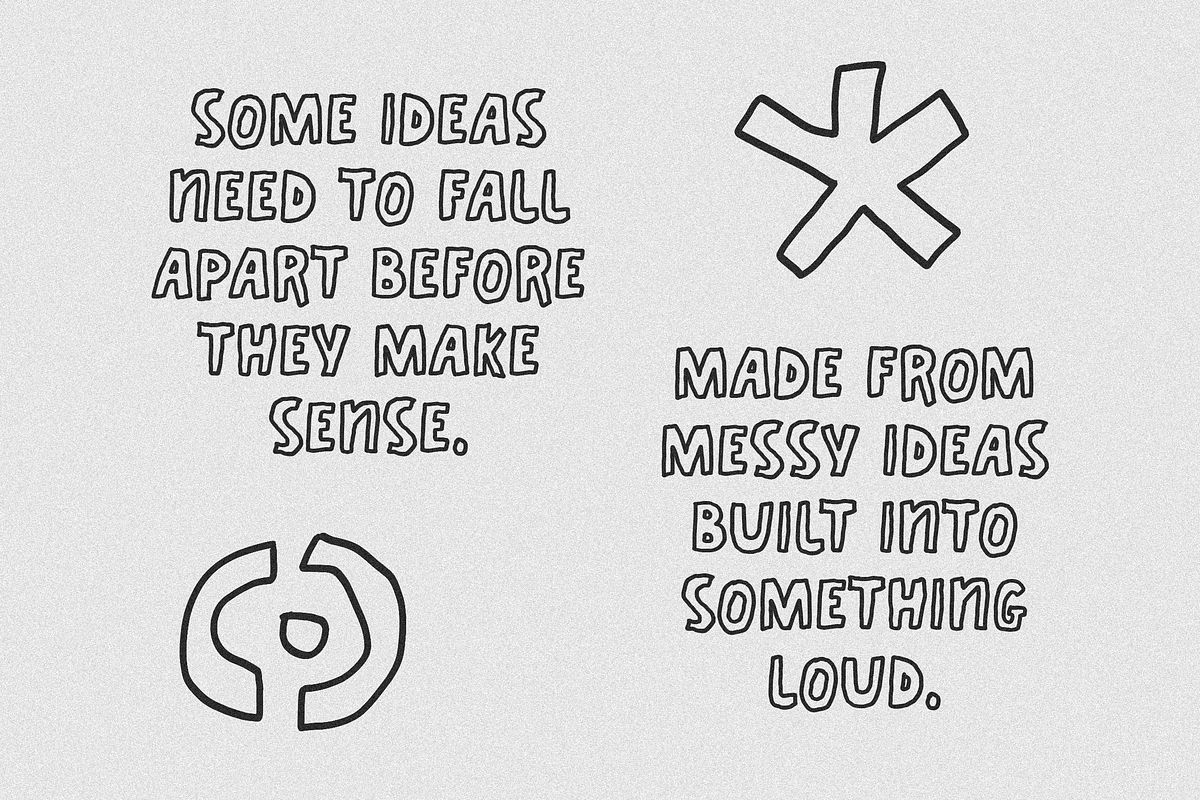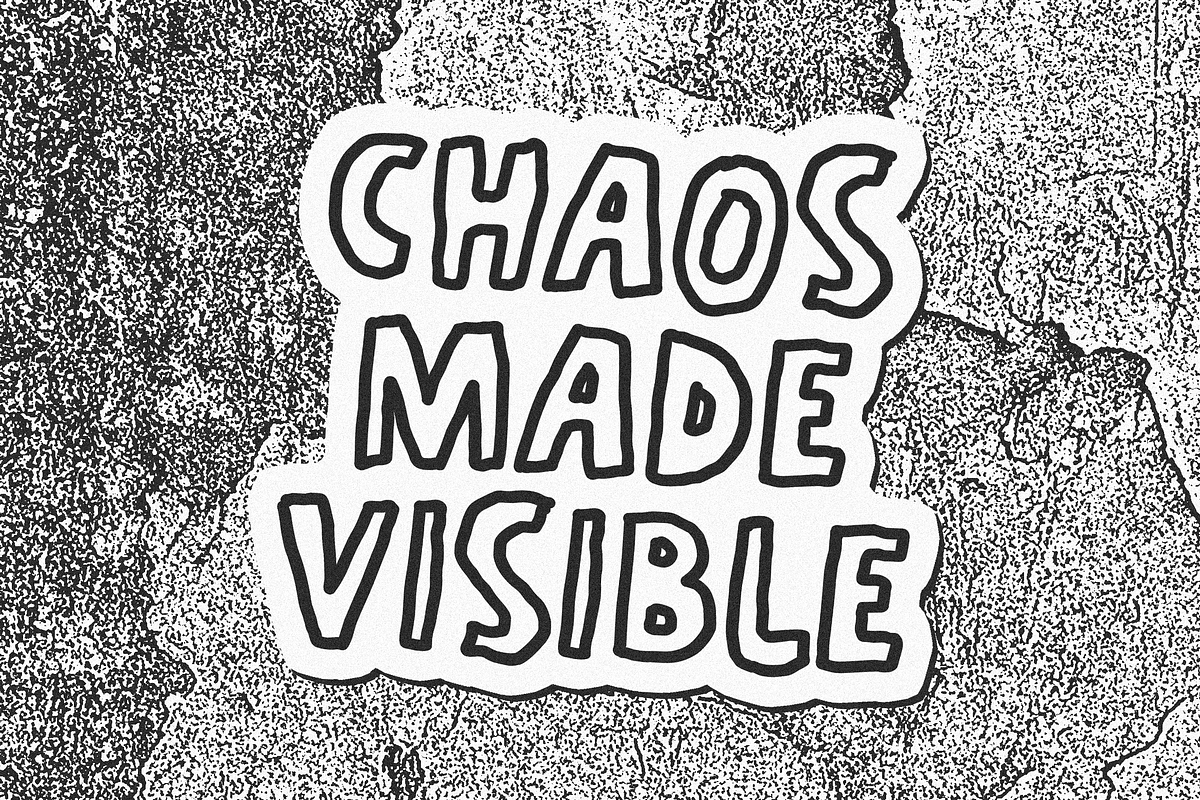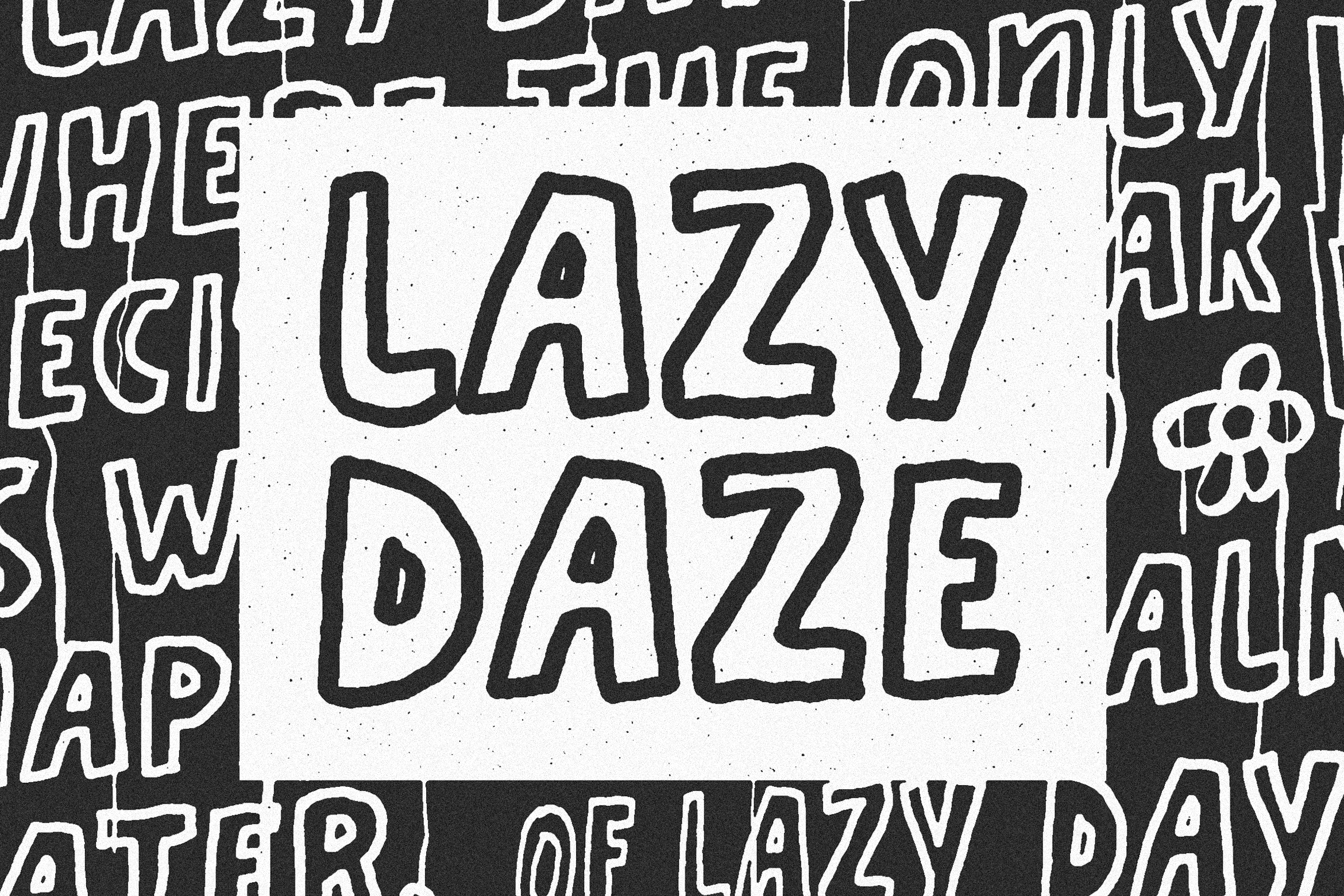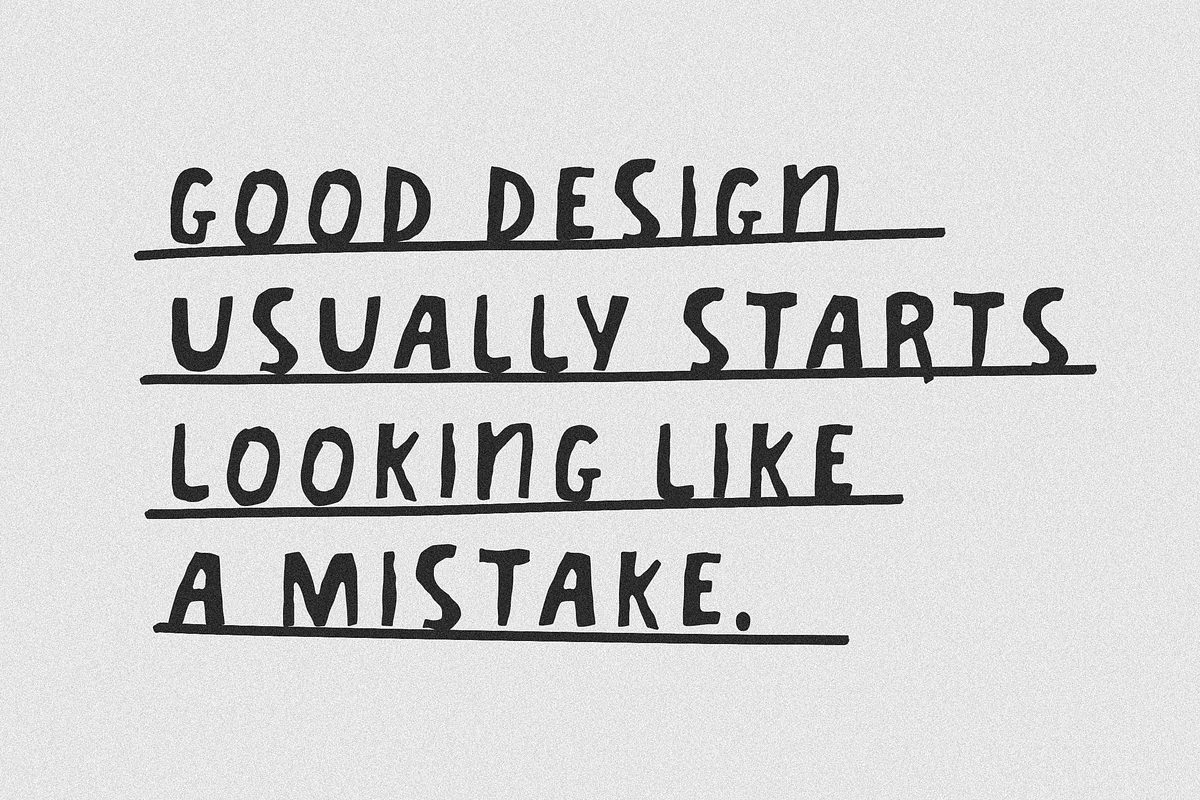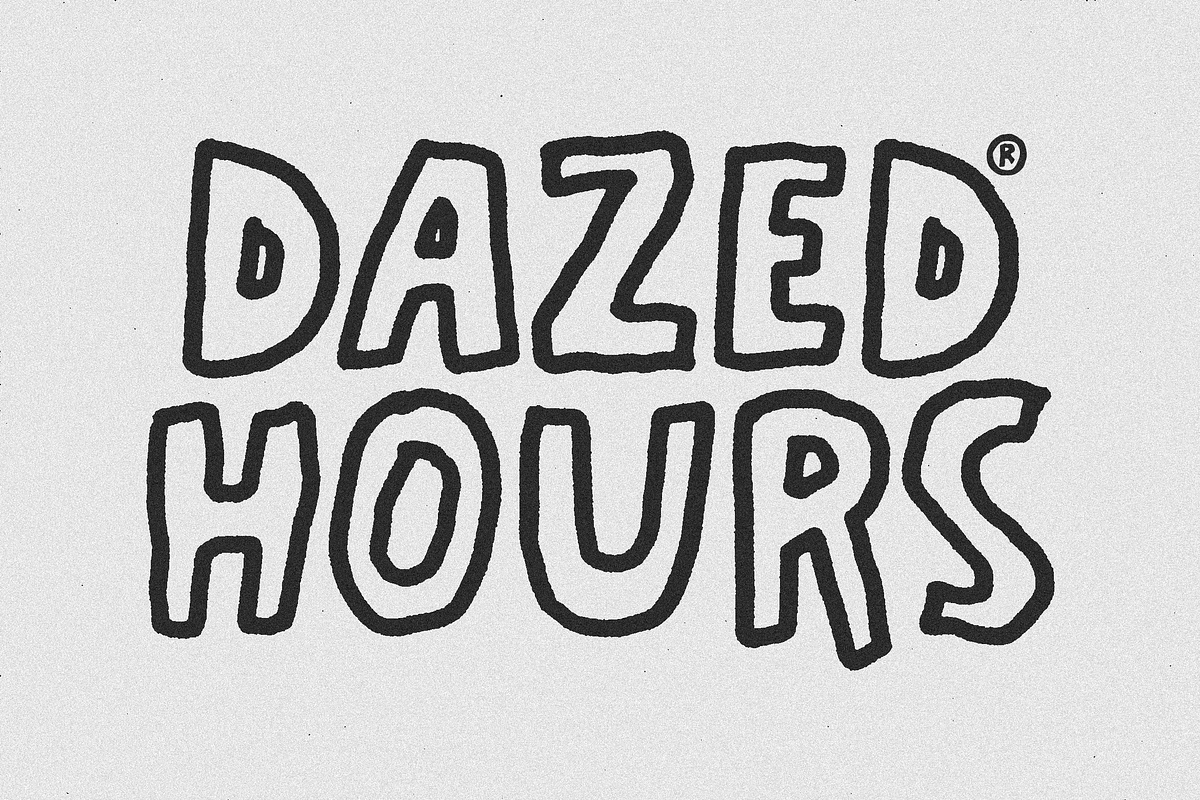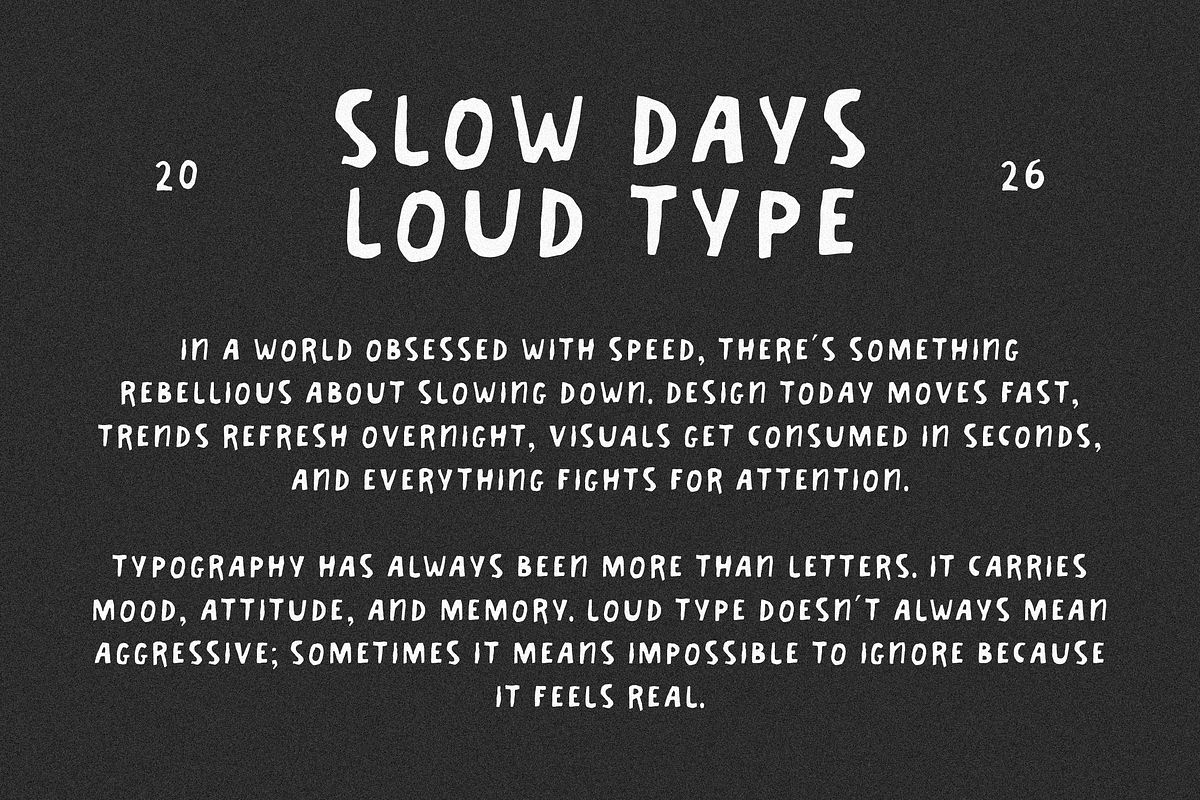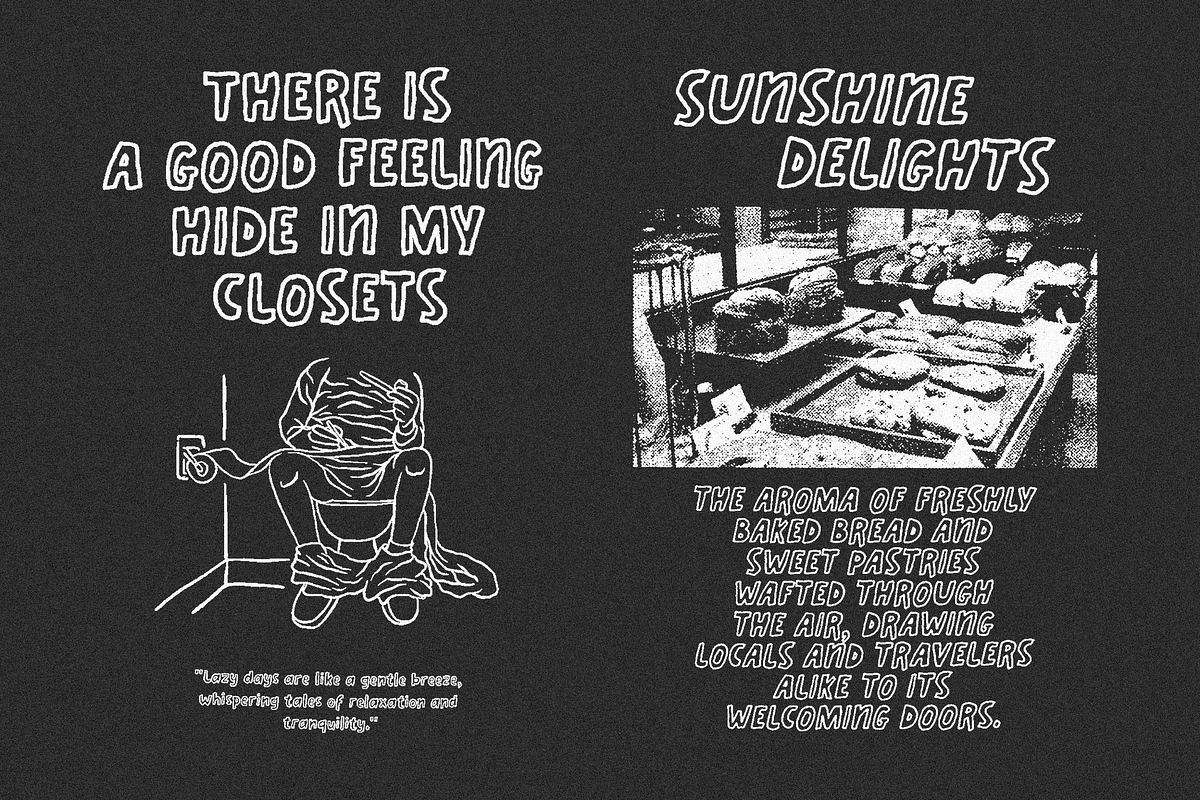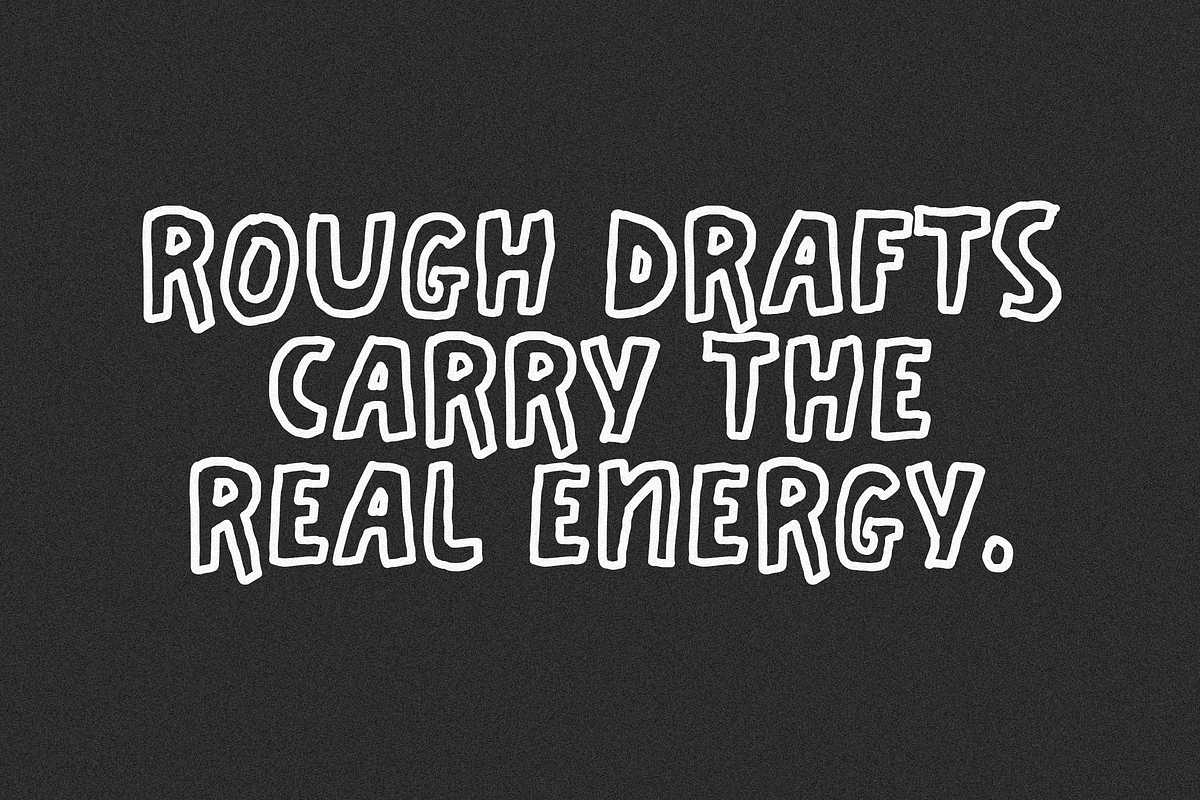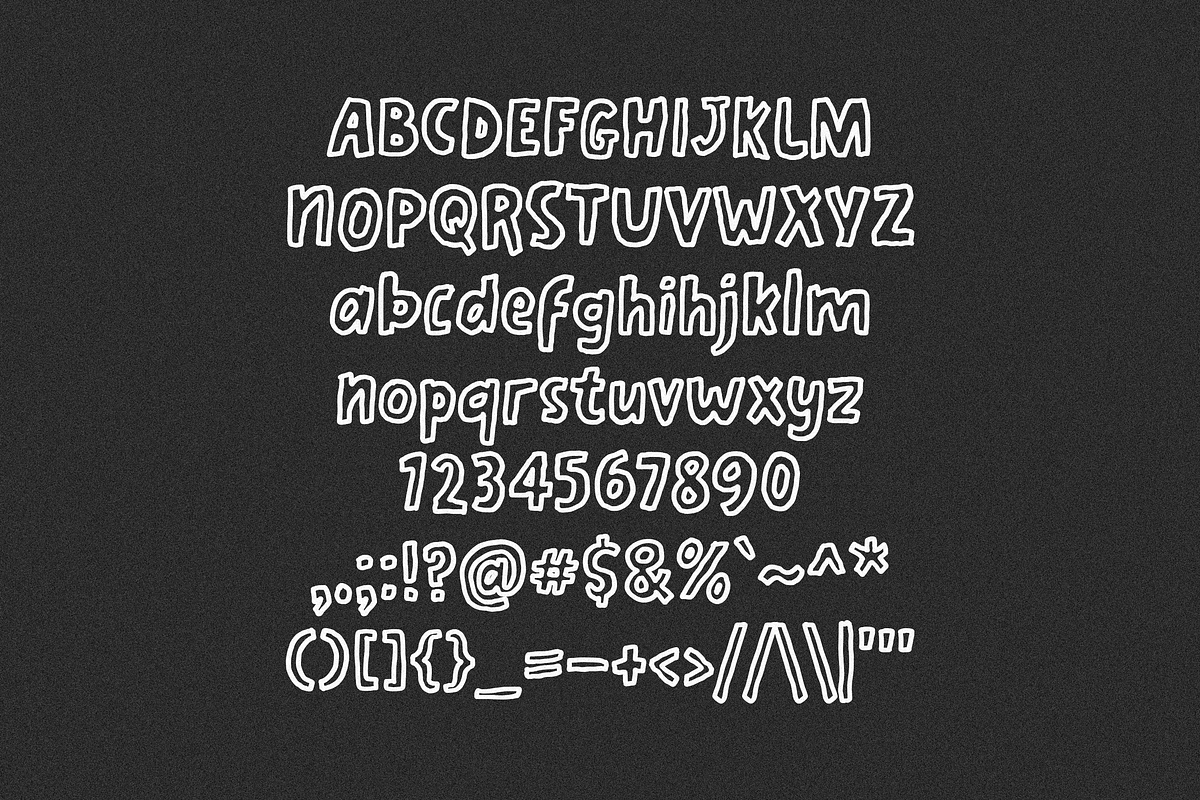
Lazy Daze - Playful Display Font
Lazy Daze is a playful hand-drawn display font built with raw energy and imperfect charm. Every letter feels like it was sketched straight from a notebook margin loose, expressive, and full of personality. The uneven strokes and chunky shapes create a casual rhythm that feels spontaneous, warm, and alive.
Inspired by doodles, zine culture, and everyday messy creativity, this typeface carries an effortless human touch. It’s the kind of font that doesn’t try too hard, and that’s exactly where its character lives. Bold enough to stand out, soft enough to stay approachable.
Lowercase
Numerics